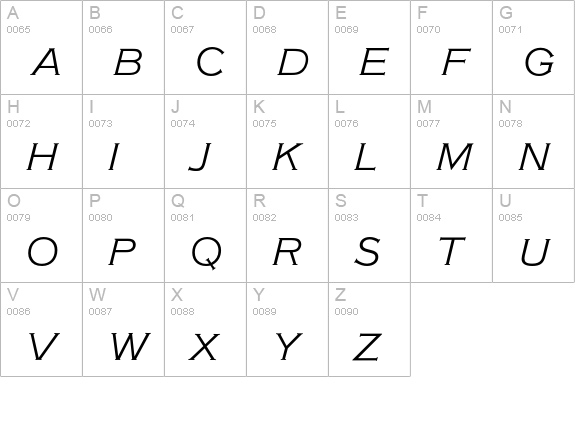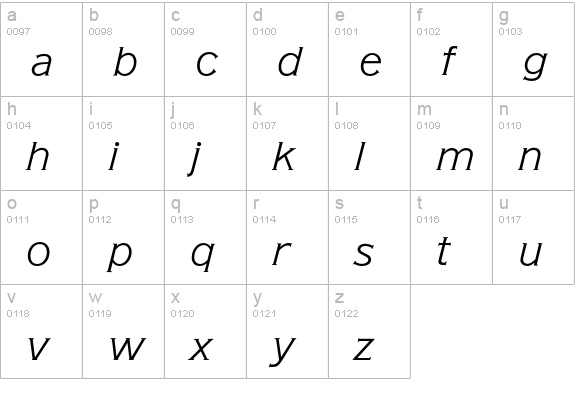
AmericanGothic-LightItalic Font Details
AmericanGothic-LightItalic font is a modern and elegant typeface that exudes sophistication and style. With its sleek lines and subtle curves, this font is perfect for adding a touch of class to any design project. The light italic style adds a unique twist, making it stand out from the crowd. What's even better is that AmericanGothic-LightItalic font is available for free download at FontsMarket.com. Whether you're working on a branding project, website design, or any other creative endeavor, this font is sure to elevate your work to the next level. Don't miss out on the opportunity to enhance your design with this stunning typeface - download AmericanGothic-LightItalic font today and see the difference it can make!